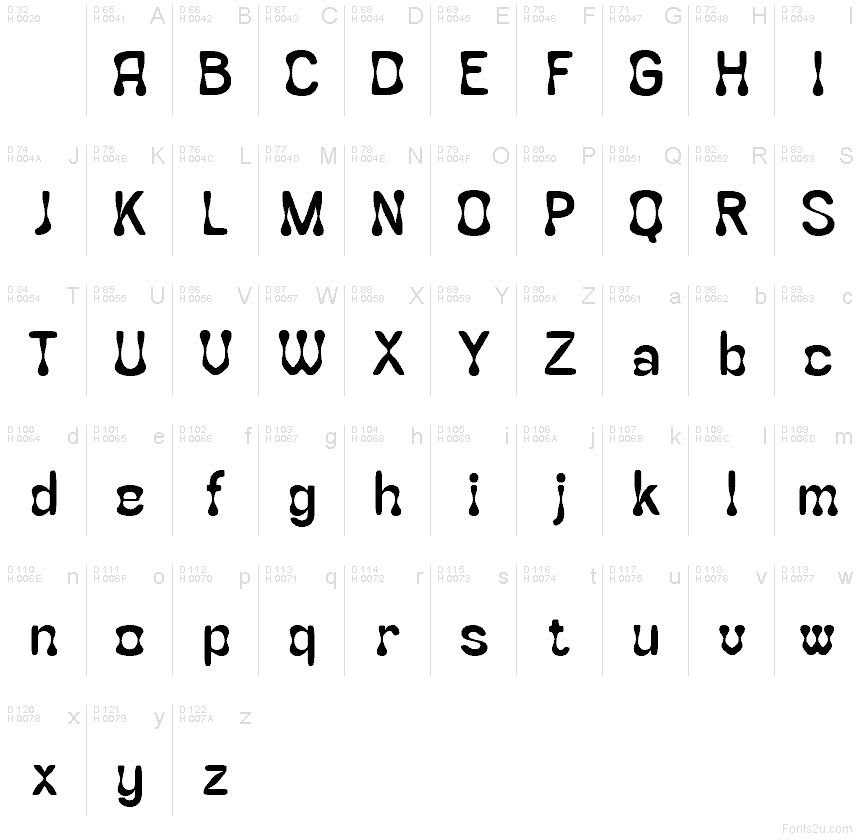
CSFloidDrawn-Regular Demo
CS Floid Drawn font by Craft Supply Co. is a display typeface with an authentic handwritten style. Built on curvy, irregular, and organic forms, this freemium font is likely to suit projects related to nature, kids or children’s products, feminine subjects, and anything that needs some creative flair. Design whimsical headings or signage with the fully-curved letters.
Use CS Floid Drawn for T-shirt designs both for print on demand and offline projects. Apply it freely in greeting cards either printed or via electronic source files. Use cases as well when branding a shop of natural products based on teas, herbs, etc. Think labels for food packaging boxes of tea blends and similar.
CS Floid Drawn Demo